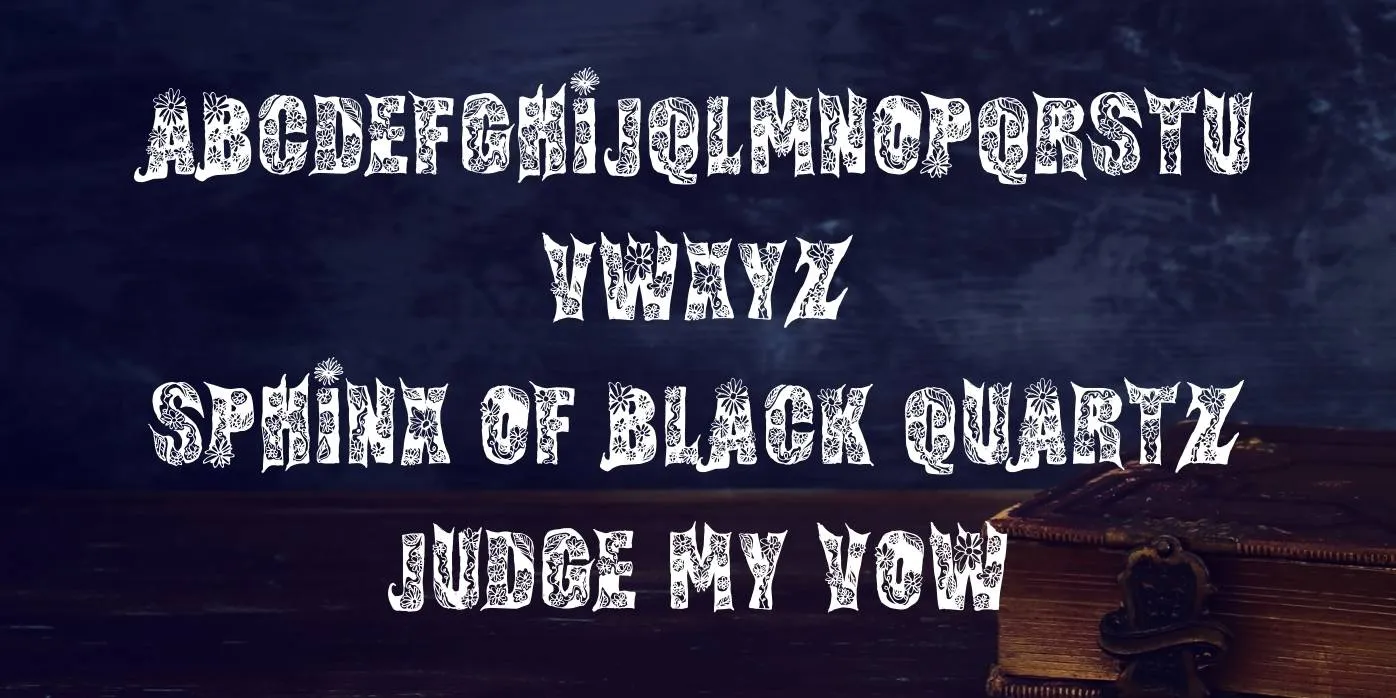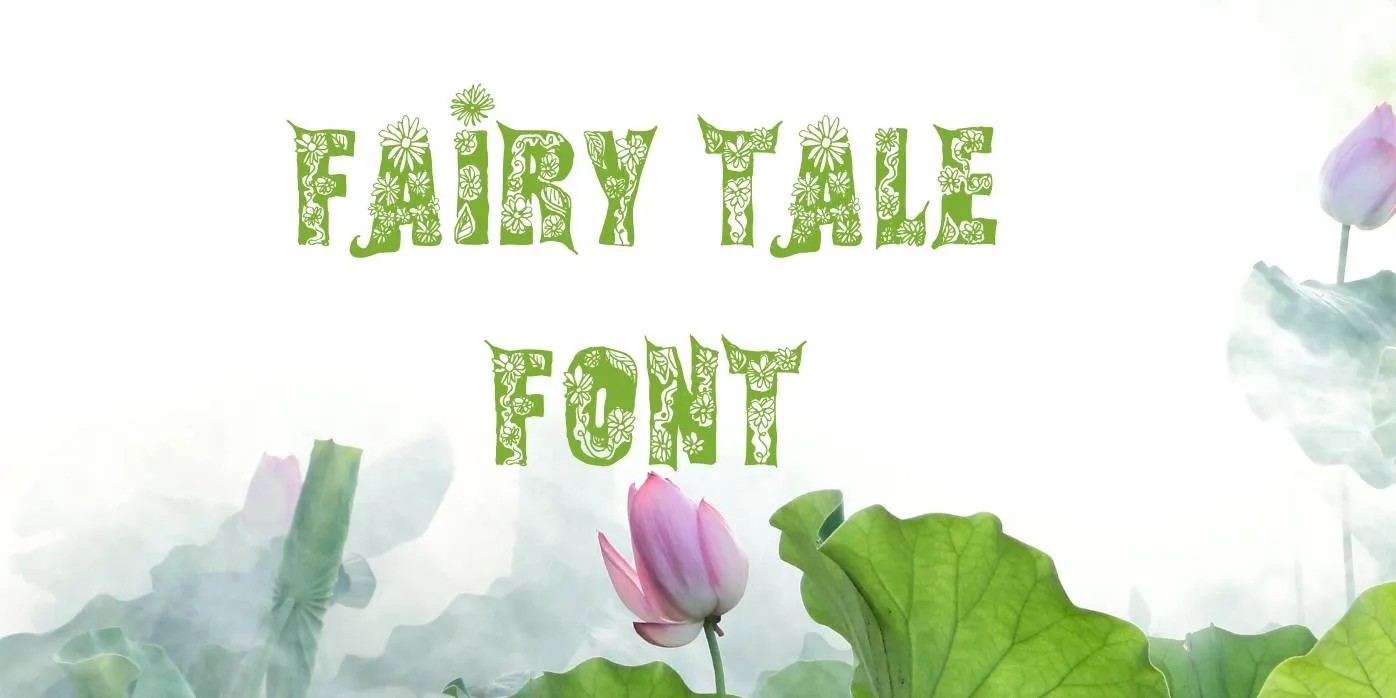
Fairy Tale Font
Today we are presenting a cozy and staggering font family named Fairy Tale Font. This classy font belongs to the Fancy font family. This charming look font was designed by a very famous designer known by the name CloutierFontes. This font was used in the hand-letter of early 1950s films.
It renews the feelings of our childhood stories. This typeface has powerful features and clean textures. This stunning font family comes in more than 218 different famous Glyphs. It has available in 229 various characters.